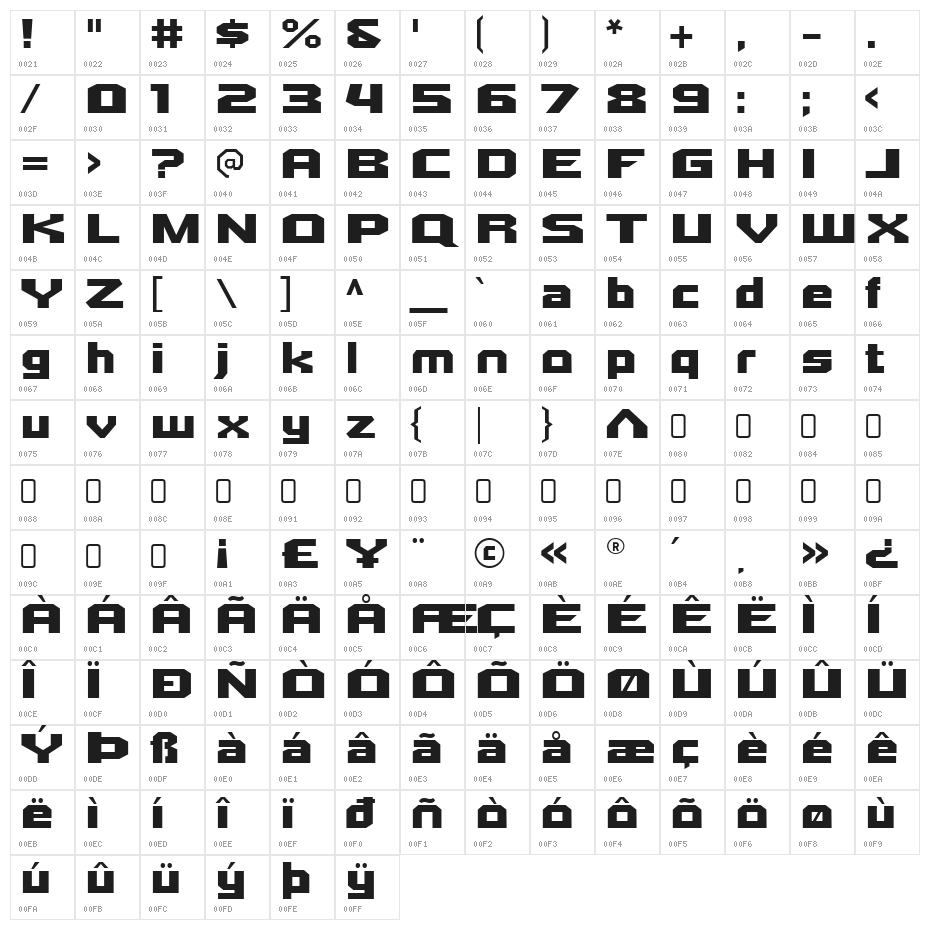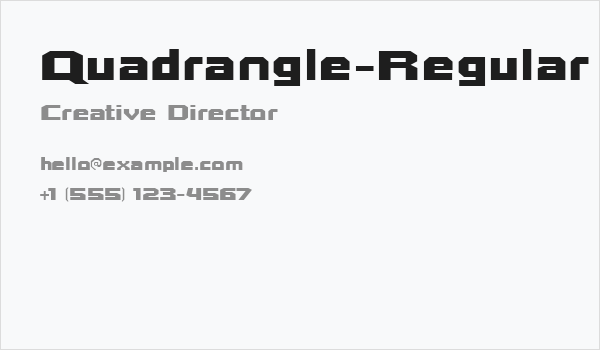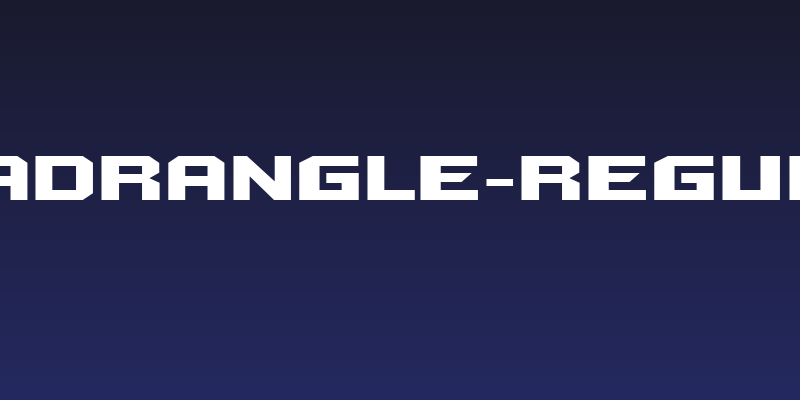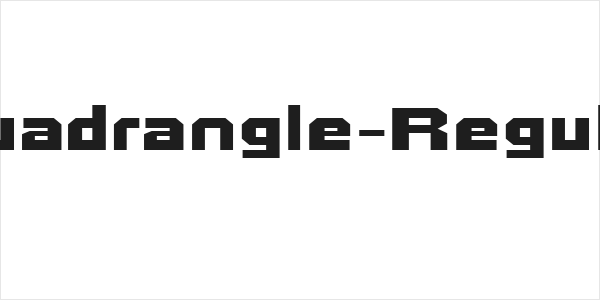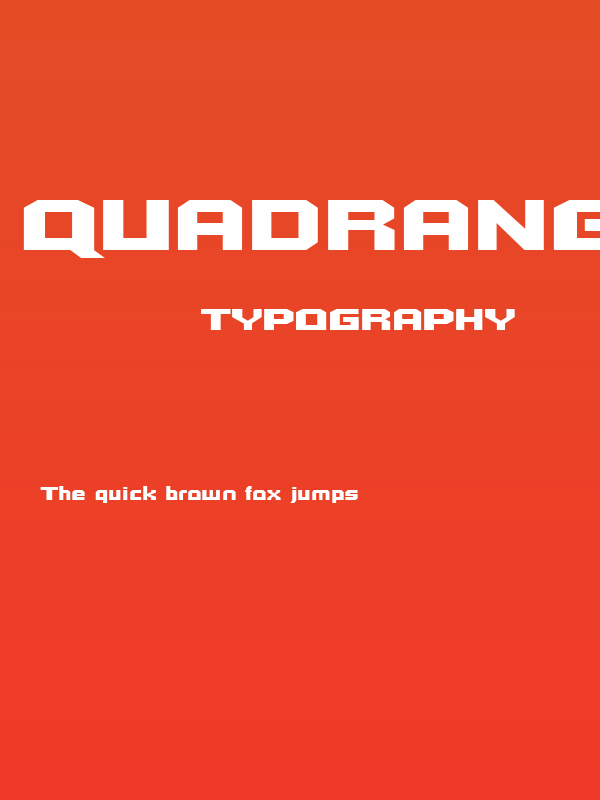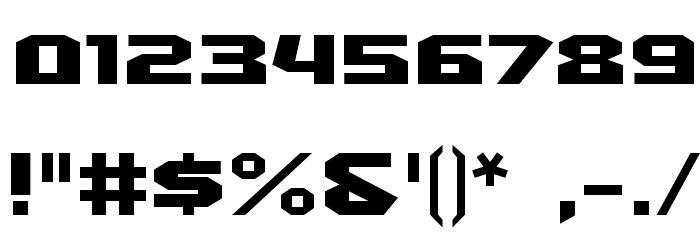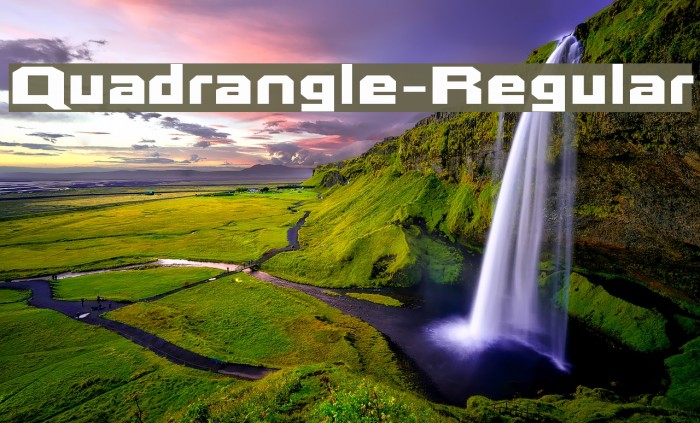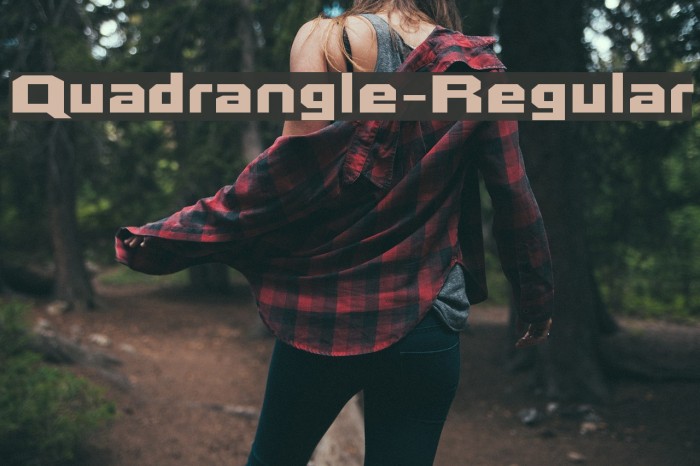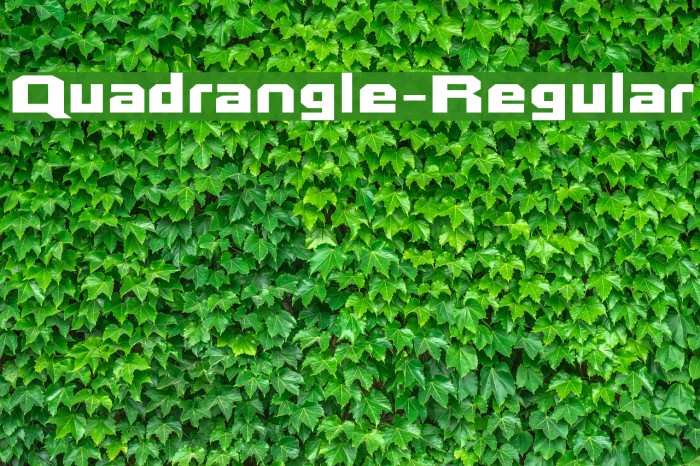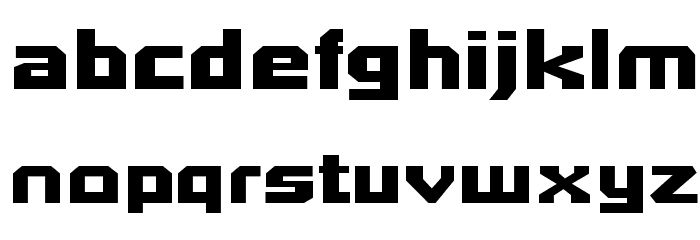
Quadrangle-Regular Font
Quadrangle-Regular Description
This font features a bold, geometric design with strong, angular lines and a modern aesthetic. The characters are constructed with a blocky, almost futuristic style that emphasizes sharp edges and a uniform thickness throughout. The uppercase and lowercase letters maintain a consistent height, contributing to a cohesive and structured appearance. Numbers and special characters follow the same design principles, ensuring a harmonious look across all glyphs. The font's distinct style makes it suitable for projects that require a contemporary and impactful visual presence.
| Proposed Projects | Ideal for branding, posters, headlines, and digital media where a strong, modern look is desired. |